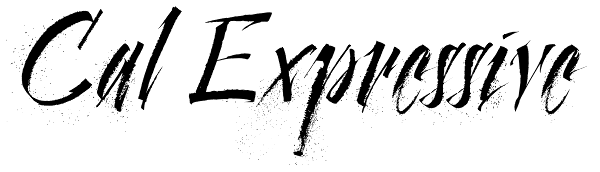
Cal Expressive
Calligrapher Expressive is one of the calligraphic group of fonts called “21 alphabets for Calligraphers“. All graphemes are taken from calligraphic pages written in Expressive calligraphic style with nibs made of cans. This font is ideal for...